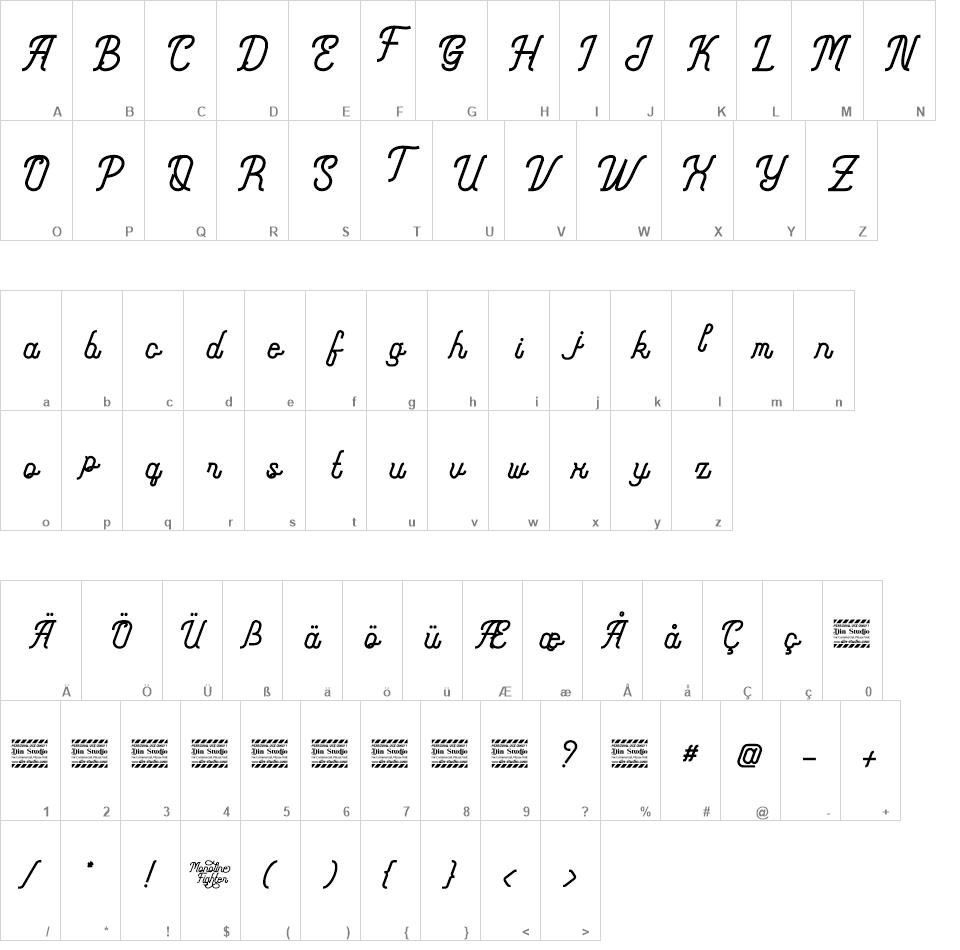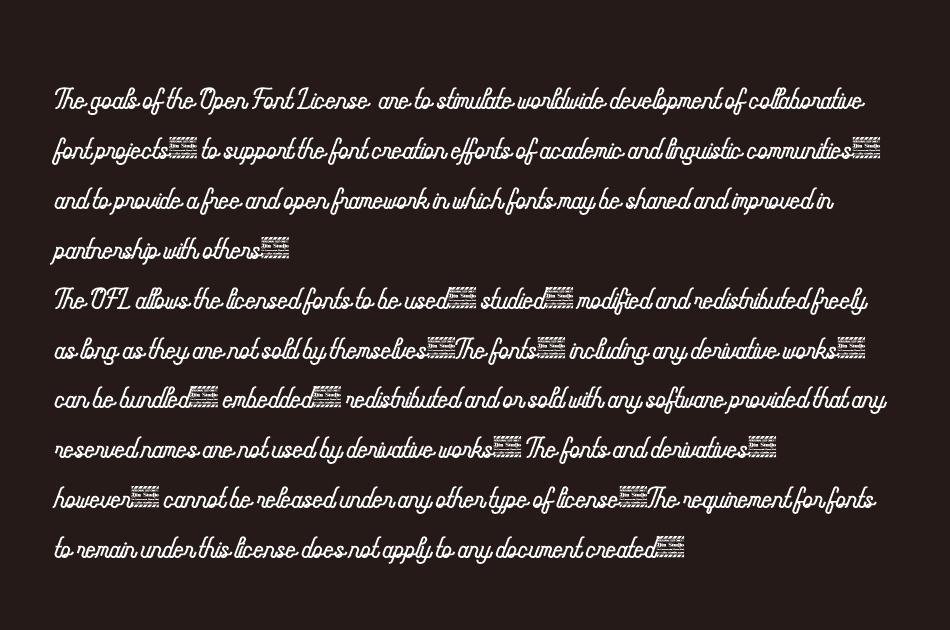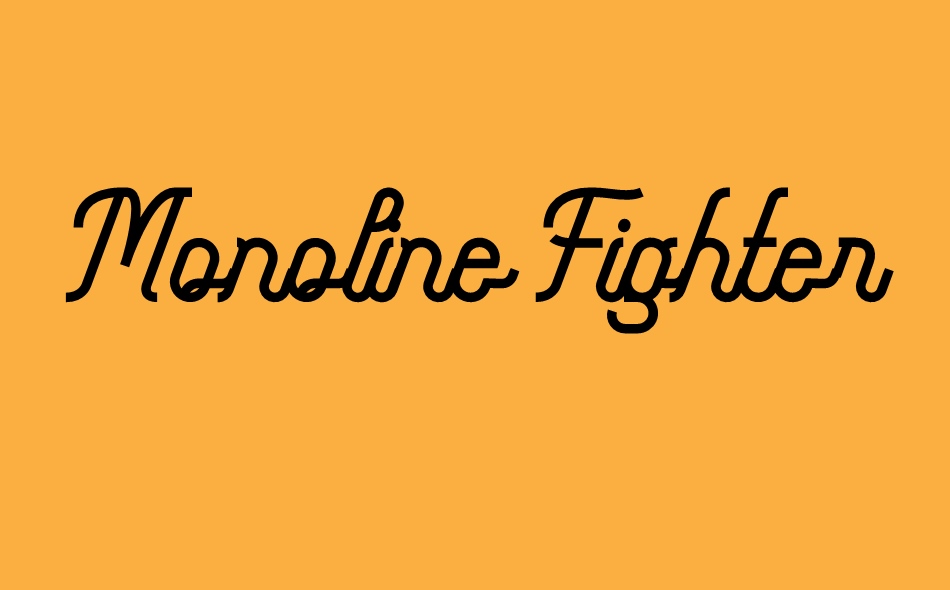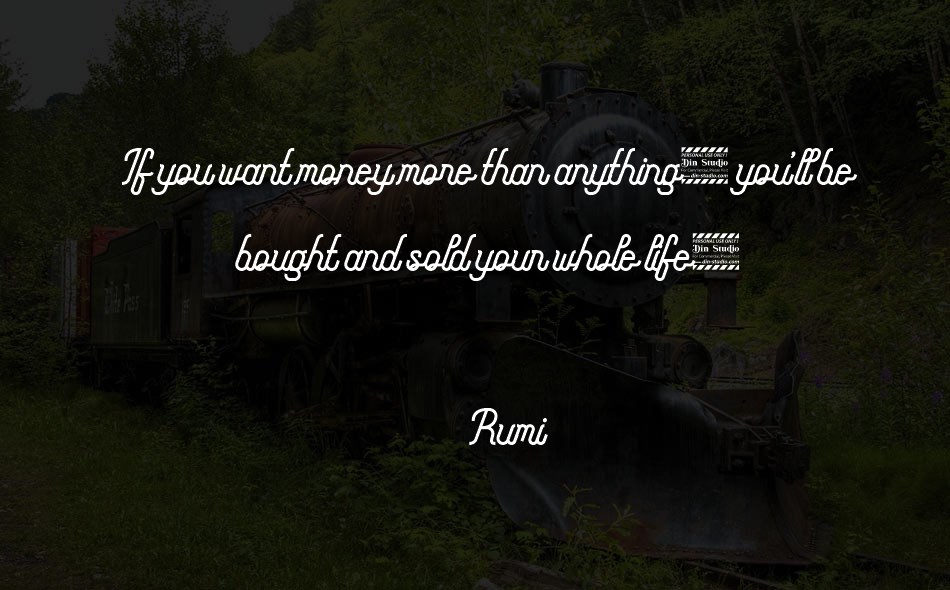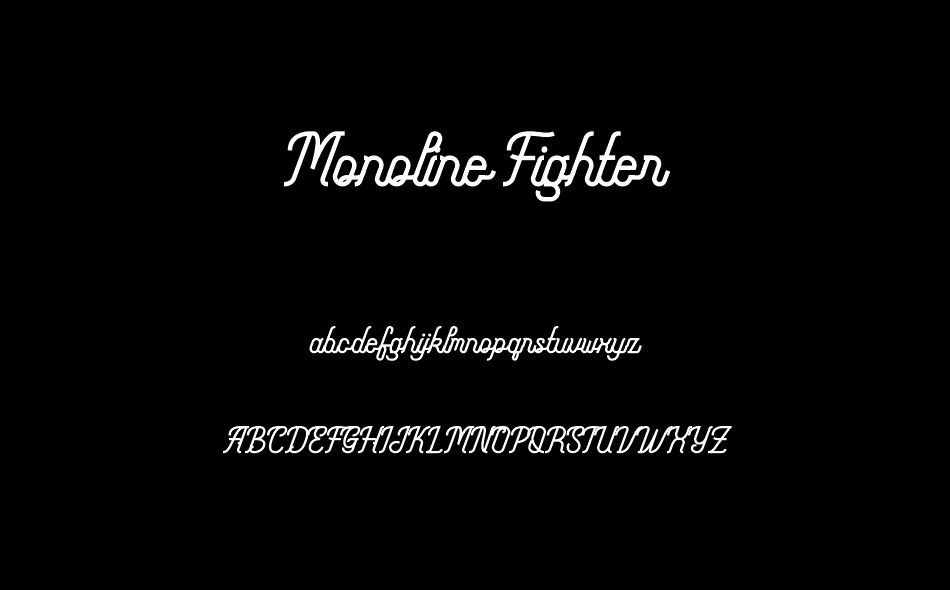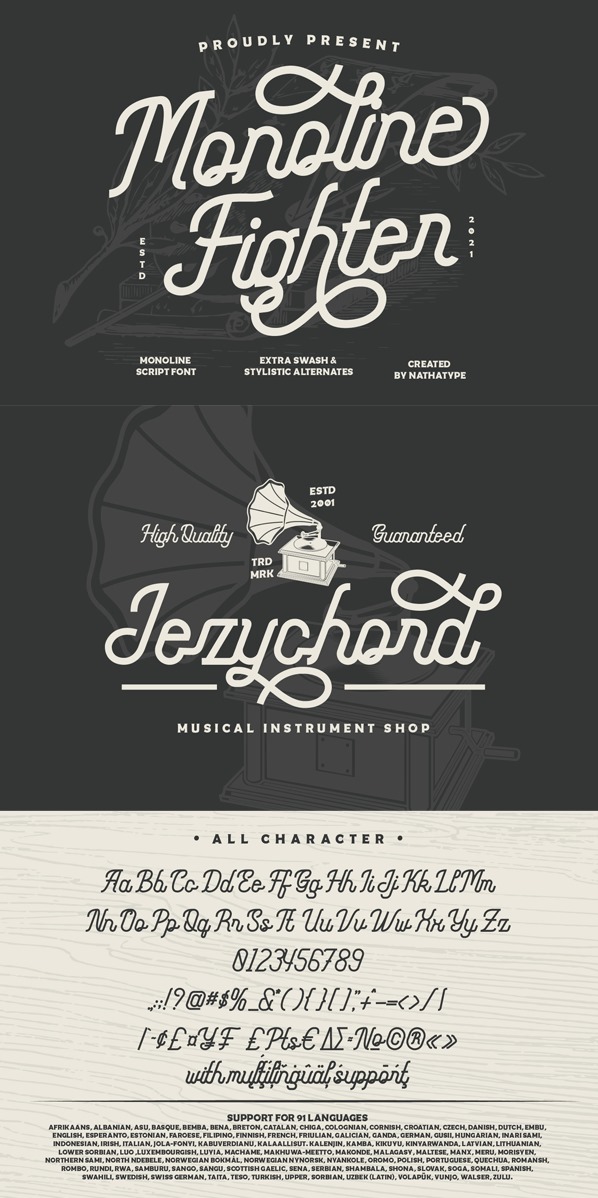
Monoline Fighter font
Monoline Fighter font created by Din Studio. The font was fully thought out to easily meld inside your designs. An excellent choice to add the right amount elegance yet vintage. This custom made font was specifically designed to fit whatever you need! Perfect for social media posts and ads, printed quotes, t-shirt designs, packaging, or even as a modern text overlay to any background image.